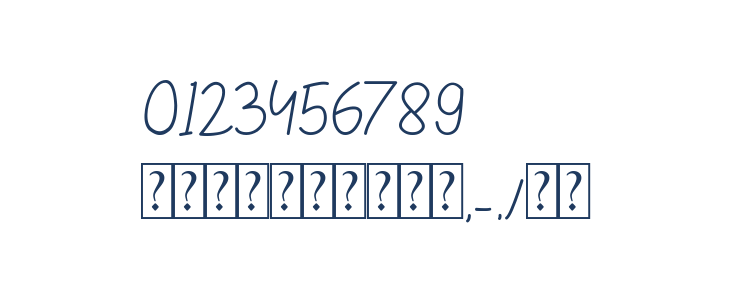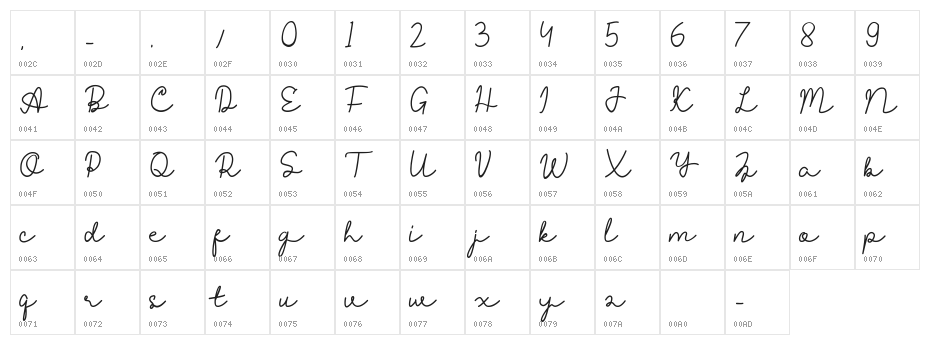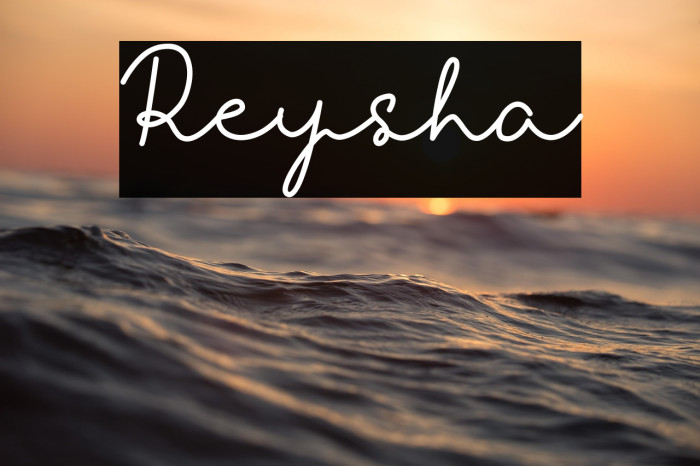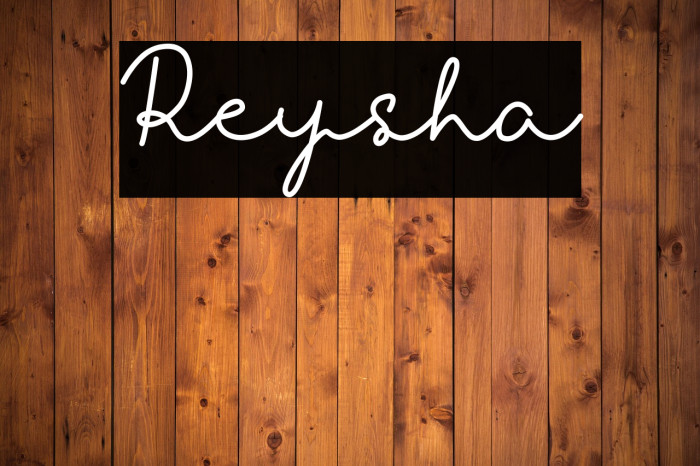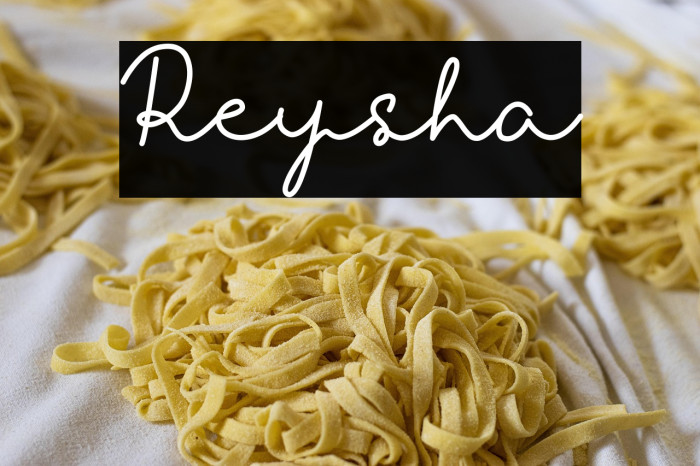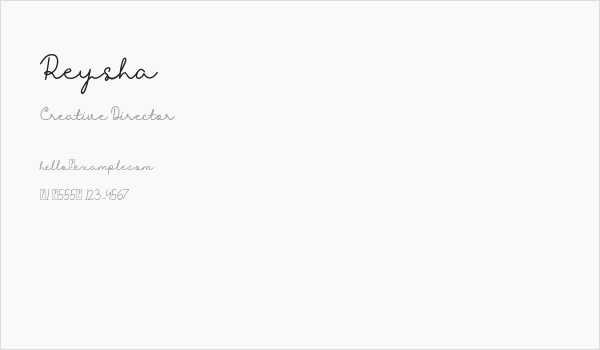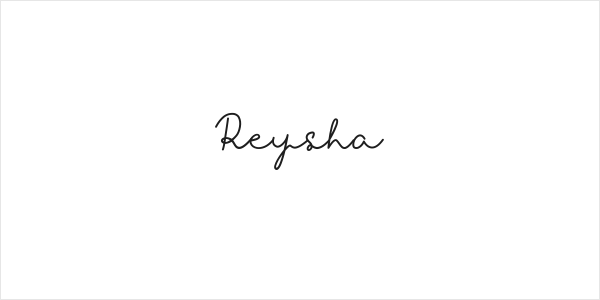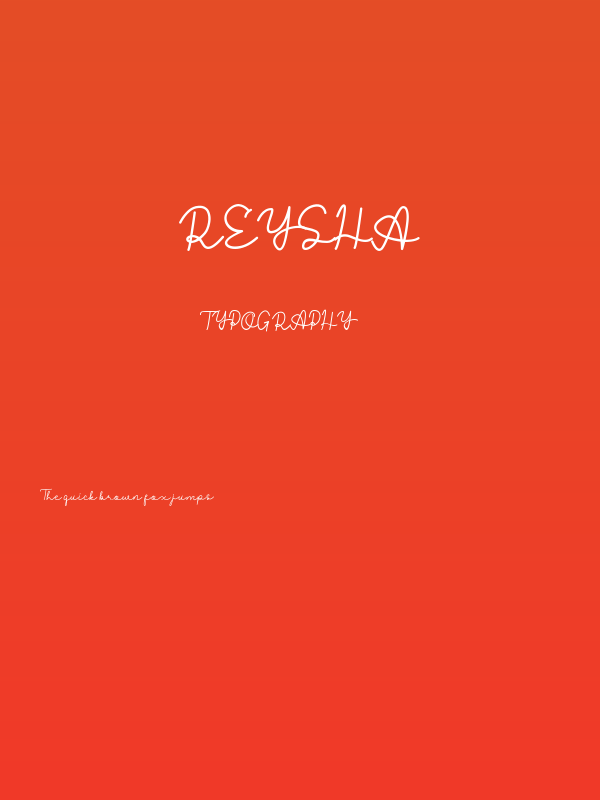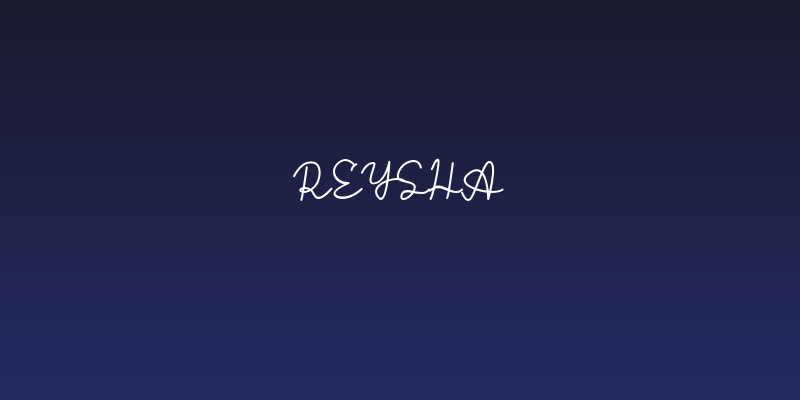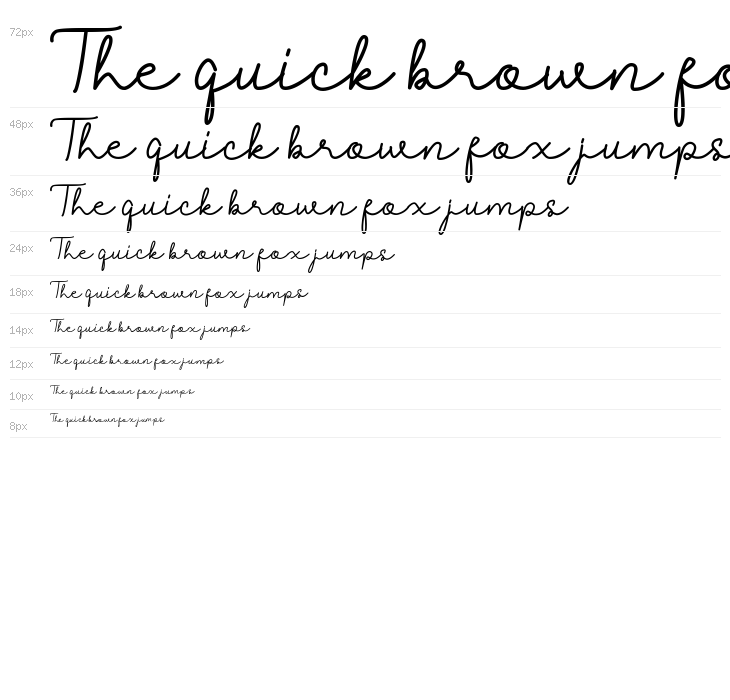
Reysha Font
Reysha Description
This elegant script font features a flowing, cursive style that mimics natural handwriting. The characters are connected, creating a seamless and fluid appearance. The uppercase letters are slightly more ornate, with graceful loops and curves, while the lowercase letters maintain a consistent rhythm and balance. The numerals are clear and complement the overall aesthetic, making them suitable for various applications. The font's smooth lines and moderate contrast in stroke thickness give it a refined and sophisticated look, perfect for adding a personal touch to any project.
Overall StyleElegant
Use CaseLogos, Invitations, Personal Branding
Proposed ProjectsIdeal for wedding invitations, greeting cards, personal branding, and elegant stationery.